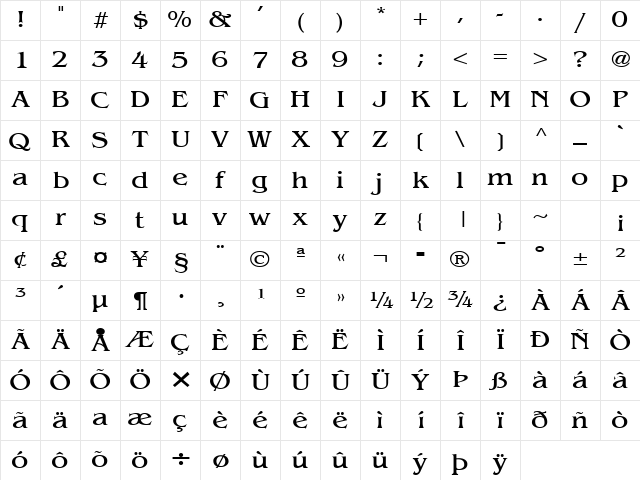
Bangle-Wide Normal
Bangle-Wide Family
Design Context for Bangle-Wide
Bangle-Wide is a composed and adaptable typeface that performs quietly and consistently across a wide range of design contexts.